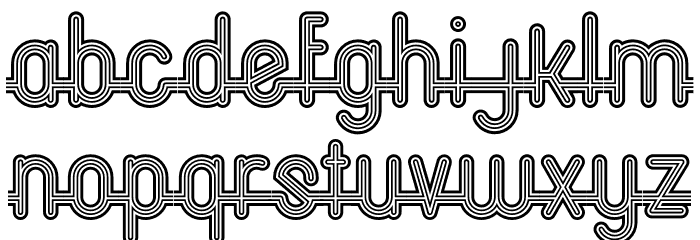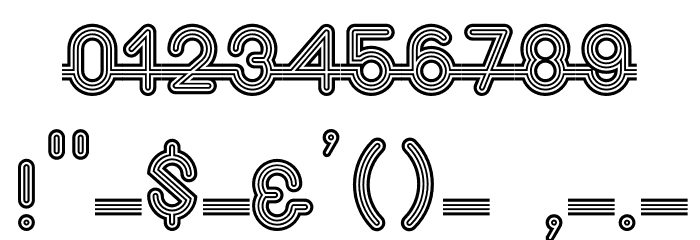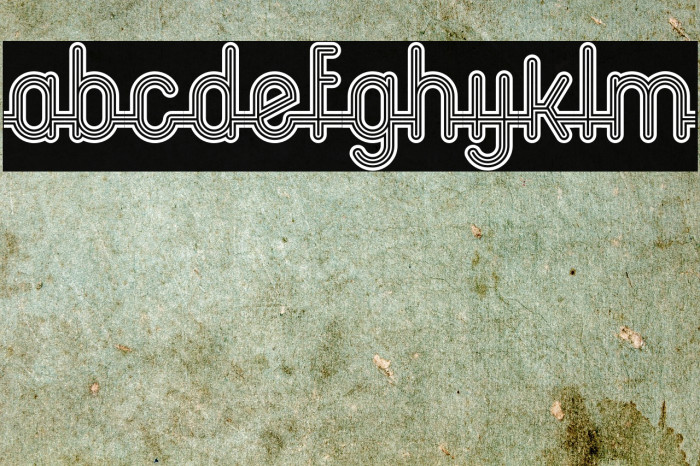
OxfordCP Font
This font features a unique and intricate design with a double-line structure that creates a sense of depth and dimension. The characters are interconnected with horizontal lines, giving it a futuristic and technical appearance. The uppercase and lowercase letters maintain a consistent style, with rounded edges and a geometric form. The numerals and special characters follow the same design principles, ensuring uniformity across all glyphs. This font's distinct style makes it stand out, suitable for projects that require a modern and innovative look.
A futuristic, double-line font with interconnected characters and geometric forms.
- Proposed Projects: Ideal for technology branding, modern posters, sci-fi themed designs, and innovative product packaging.